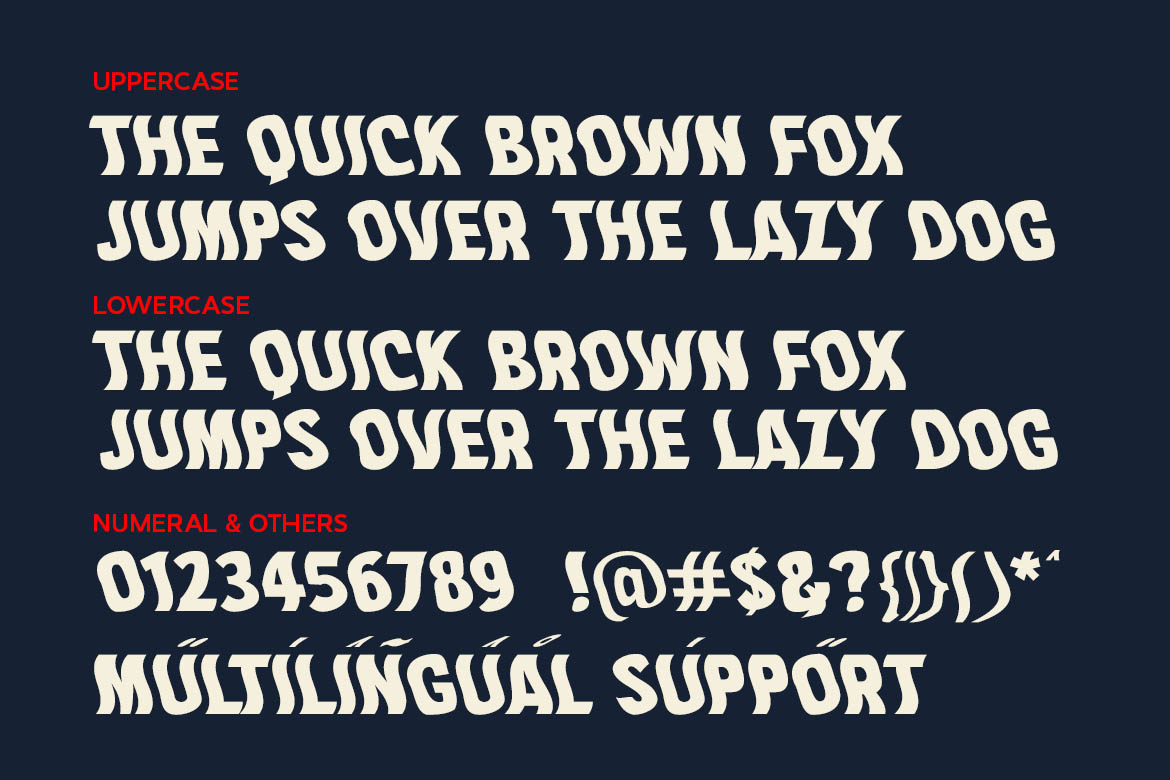
Beach Wave
Beach Wave is a bold and fun display font inspired by the energy of summer and the rhythm of ocean waves. With playful curves and a fresh vibe, this font is perfect for beach-themed projects, summer event posters, holiday promotions, t-shirts, surf brands, kids' content, and anything that needs a splash of fun.
Designed to bring joy and movement to your typography, Beach Wave is ideal for playful branding, travel ads, party flyers, or any design that calls for bold creativity. Available now on PrimeFont — your destination for unique, high-quality fonts.